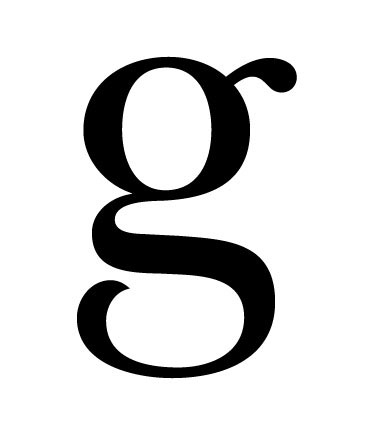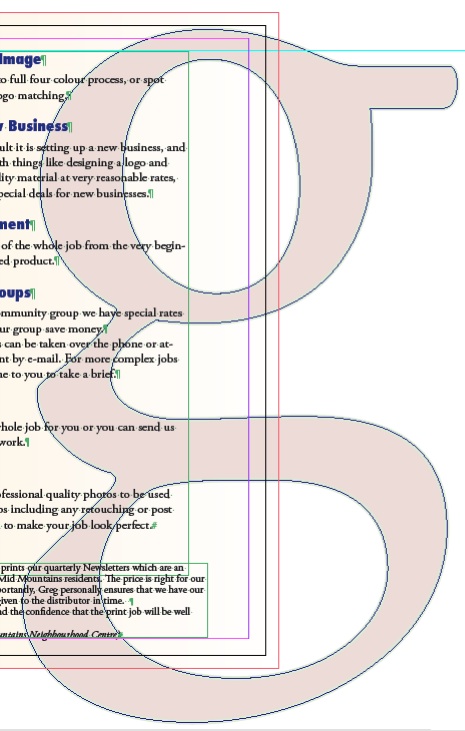
ATD said: And I agree with Jaffa Cake, the best designed letter of the alphabet is a serif lowercase g. Click to expand... I'll have to agree with that. I used a lower case g only last week as a design element coincidentally.
dogbone said: I'll have to agree with that. I used a lower case g only last week as a design element coincidentally. Click to expand... Ah, but it's not a patch on Baskerville's G... 😉
Jaffa Cake said: Ah, but it's not a patch on Baskerville's G... 😉 Click to expand... oooh that *is* nice. I can feel a new thread coming on... And the winner for best lower case g for both italic and non italic is...
A ATD macrumors 6502a Apr 10, 2006 #29 I always loved this one, Stone Serif g Attachments g.jpg 38.5 KB · Views: 160
aa... macrumors newbie Apr 12, 2006 #31 Univers extended. Austerity. Nostalgic but with a nod to the future. Attachments Picture 5.png 8.9 KB · Views: 191